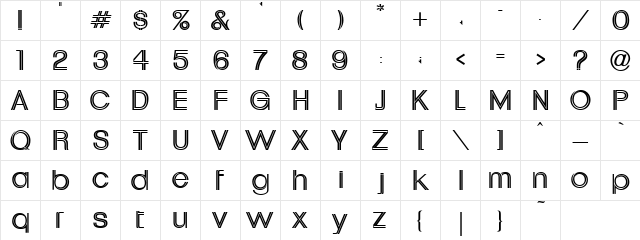
Tahitelbait Regular
Design Context for Tahitelbait
Tahitelbait is a composed and adaptable typeface that performs quietly and consistently across a wide range of design contexts.
Pro Tip: Use Tahitelbait in both headline and body roles to test its range before committing to a single application.